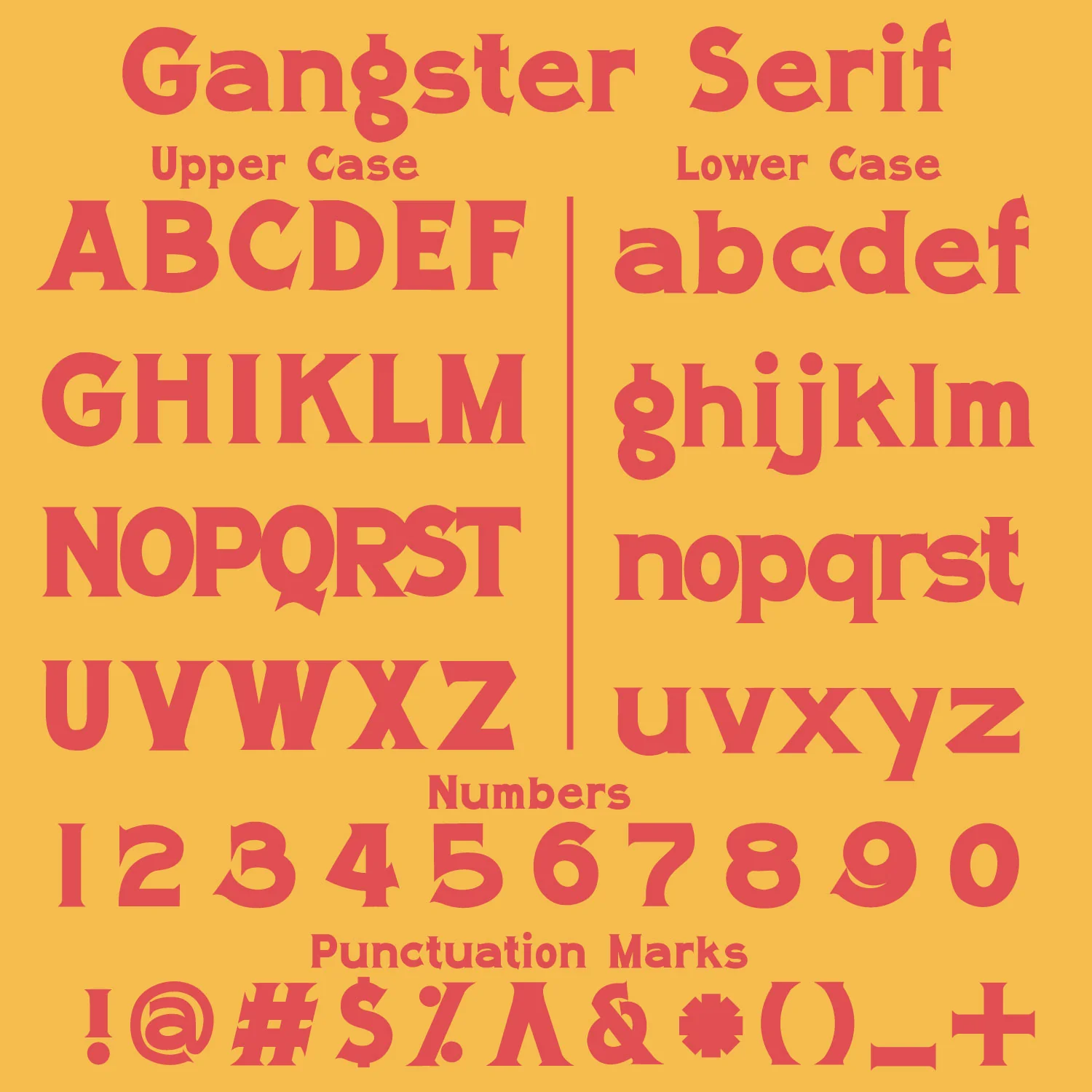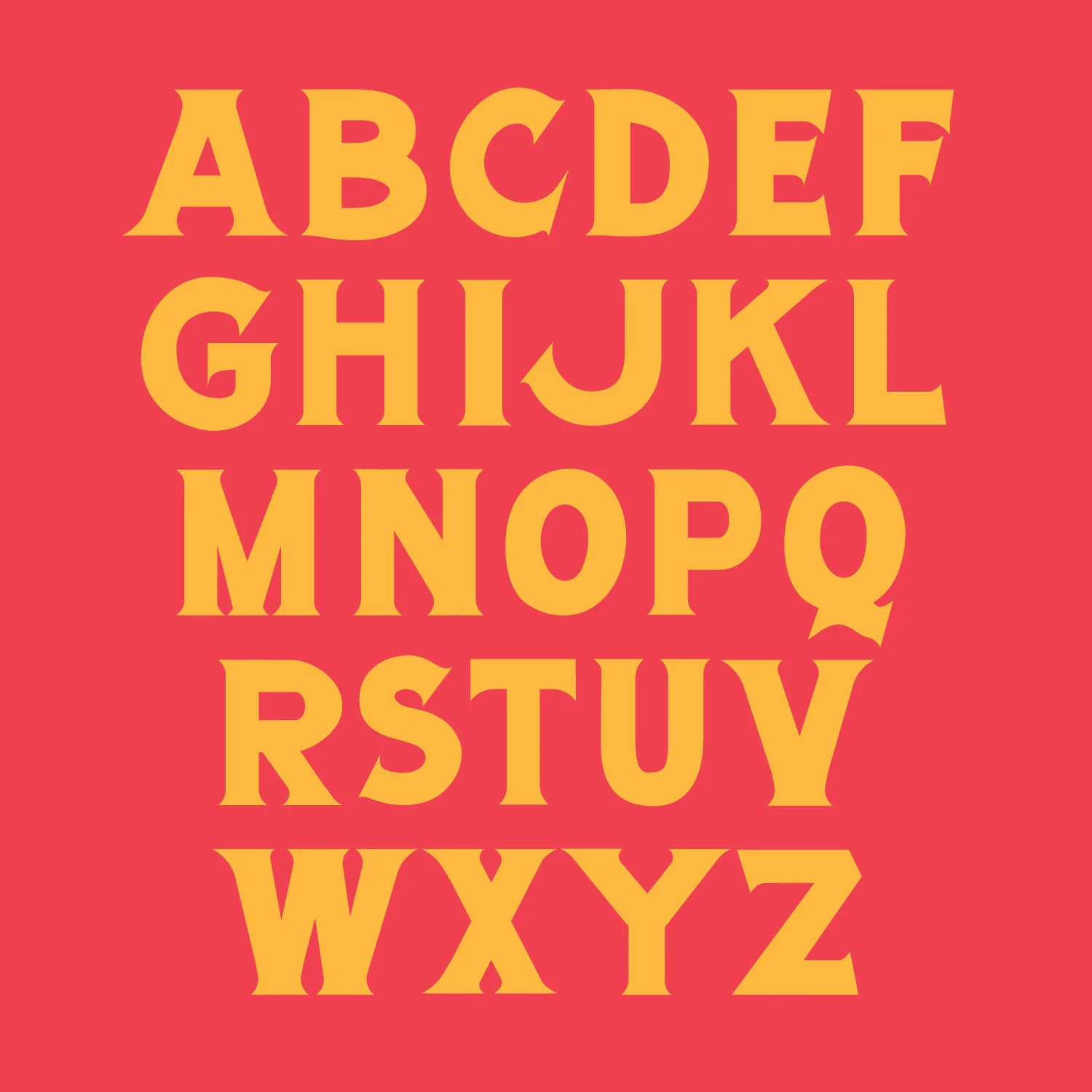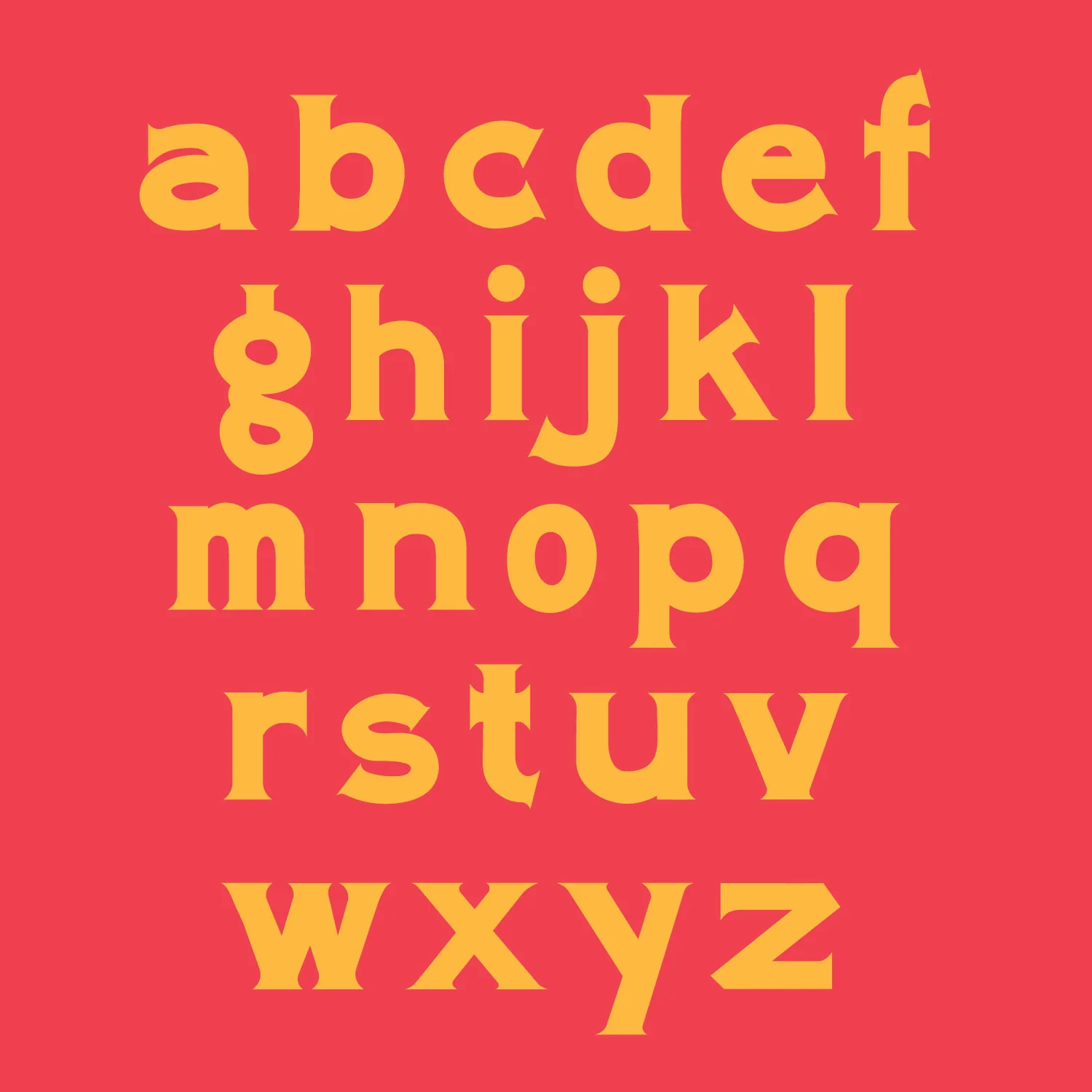
Gangster Serif Font
Ain't nuthin' but a G thang! An imperfect serif font designed by Samborghini
• Uppercase Character Set A-Z
• Lowercase Character Set a-z
• Numerals & Simple punctuation